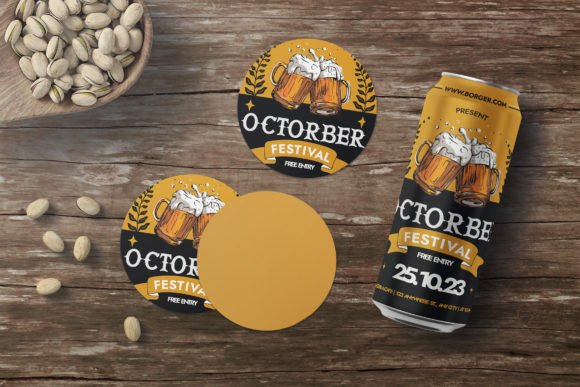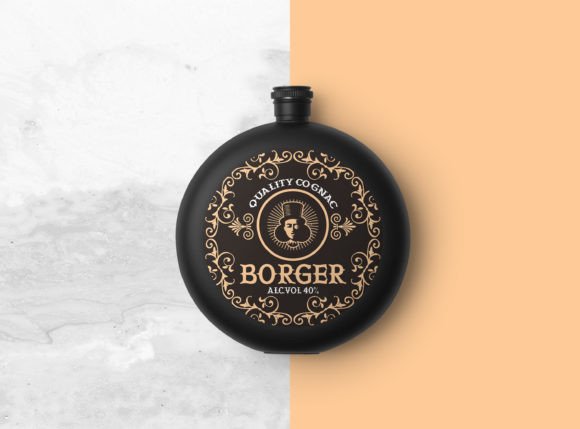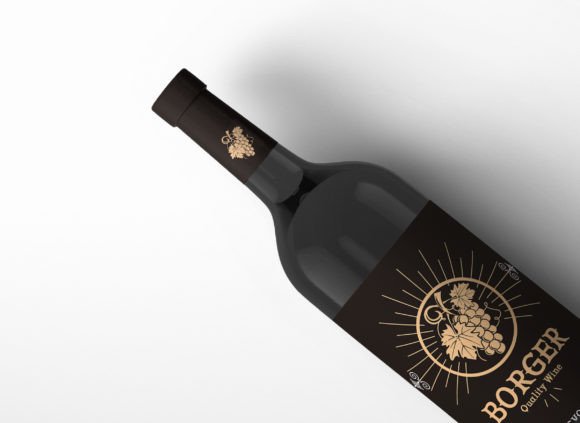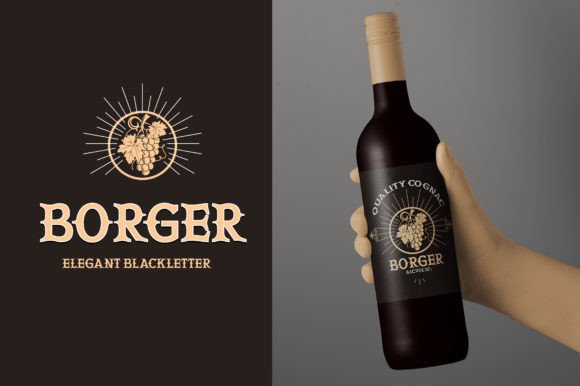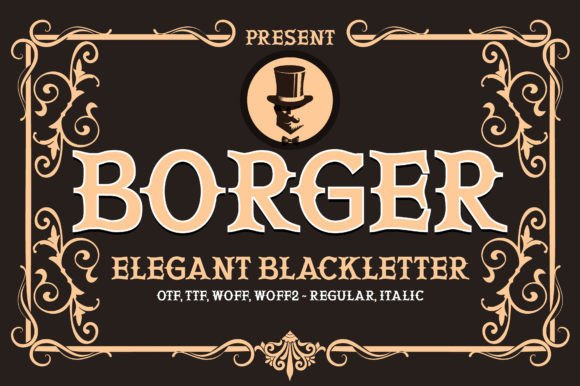
Introducing Borger Font: The Ultimate Display Font for Bold Designs
In the world of typography, fonts play a crucial role in conveying the tone and personality of a design. For designers and crafters looking for a strong, extreme, and vintage blackletter detailed serif font, Borger Font is an excellent choice. Initially created as a readable display font for alcohol packaging, Borger Font has proven to be versatile and adaptable to various themes, including film posters, horror designs, barber shop graphics, and packaging, Halloween, and more.
What Makes Borger Font Stand Out?
Borger Font boasts a unique blend of traditional blackletter elements with a modern twist. Its strong, extreme, and vintage characteristics make it perfect for designs that require a bold and eye-catching font. The font’s detailed serif elements add a touch of sophistication, making it suitable for a wide range of applications.
Key Features of Borger Font
- Strong and Extreme: Borger Font’s bold and dramatic design makes it ideal for creating striking headlines and titles.
- Vintage Blackletter Detailed Serif: The font’s classic blackletter elements are combined with intricate serif details, giving it a unique and distinctive look.
- Readable Display Font: Despite its bold design, Borger Font remains highly readable, making it perfect for display purposes.
- Versatile: Borger Font can be used for various design projects, from packaging and posters to graphics and Halloween-themed designs.
Perfect for Alcohol Packaging
Borger Font was initially designed for alcohol packaging, and it’s easy to see why. The font’s bold and vintage design evokes a sense of luxury and sophistication, making it perfect for wine, beer, and spirits branding. Whether you’re creating labels, bottles, or advertising materials, Borger Font is sure to make your design stand out.
Beyond Packaging: Exploring Other Uses for Borger Font
While Borger Font excels in packaging design, its versatility means it can be used for a wide range of projects. Some other themes and applications where Borger Font shines include:
- Film Posters: Add a touch of drama and horror to your film posters with Borger Font’s bold and eye-catching design.
- Horror Designs: Create spooky and eerie designs for Halloween or horror-themed projects with Borger Font’s vintage blackletter elements.
- Barber Shop Graphics: Use Borger Font to create bold and stylish graphics for barber shops, adding a touch of vintage flair to your designs.
- Halloween Designs: Borger Font is perfect for creating spooky and festive designs for Halloween, from invitations to decorations.
Tips for Using Borger Font Effectively
To get the most out of Borger Font, consider the following tips:
- Use it sparingly: Borger Font’s bold design can be overwhelming if overused. Use it for headlines and titles, and pair it with a simpler font for body text.
- Experiment with colors: Borger Font looks great in bold, bright colors. Experiment with different hues to find the perfect match for your design.
- Pair it with contrasting fonts: Combine Borger Font with a clean, modern font to create visual interest and contrast.